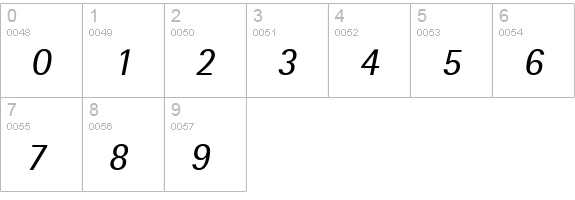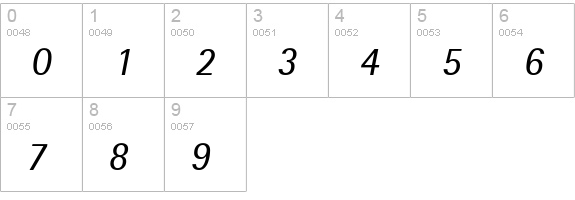
Libre Semi Sans SSi Italic is a distinctive, italic variant in the Libre typeface family \xE2\x80\x94 well suited to design and typography projects.
Libre Semi Sans SSi Italic is a modern and sleek font that exudes a sense of sophistication and style. Its italic style adds a touch of elegance and flair to any design project. With its clean lines and balanced proportions, this font is versatile and can be used for a wide range of design applications. What makes Libre Semi Sans SSi Italic even more appealing is that it is available for free download at FontsMarket.com. This means that you can easily access and use this high-quality font in your projects without any cost. Whether you're working on a website, poster, brochure, or any other design project, Libre Semi Sans SSi Italic is sure to make your text stand out and leave a lasting impression. Download this font today and elevate your designs with its modern and stylish aesthetic.